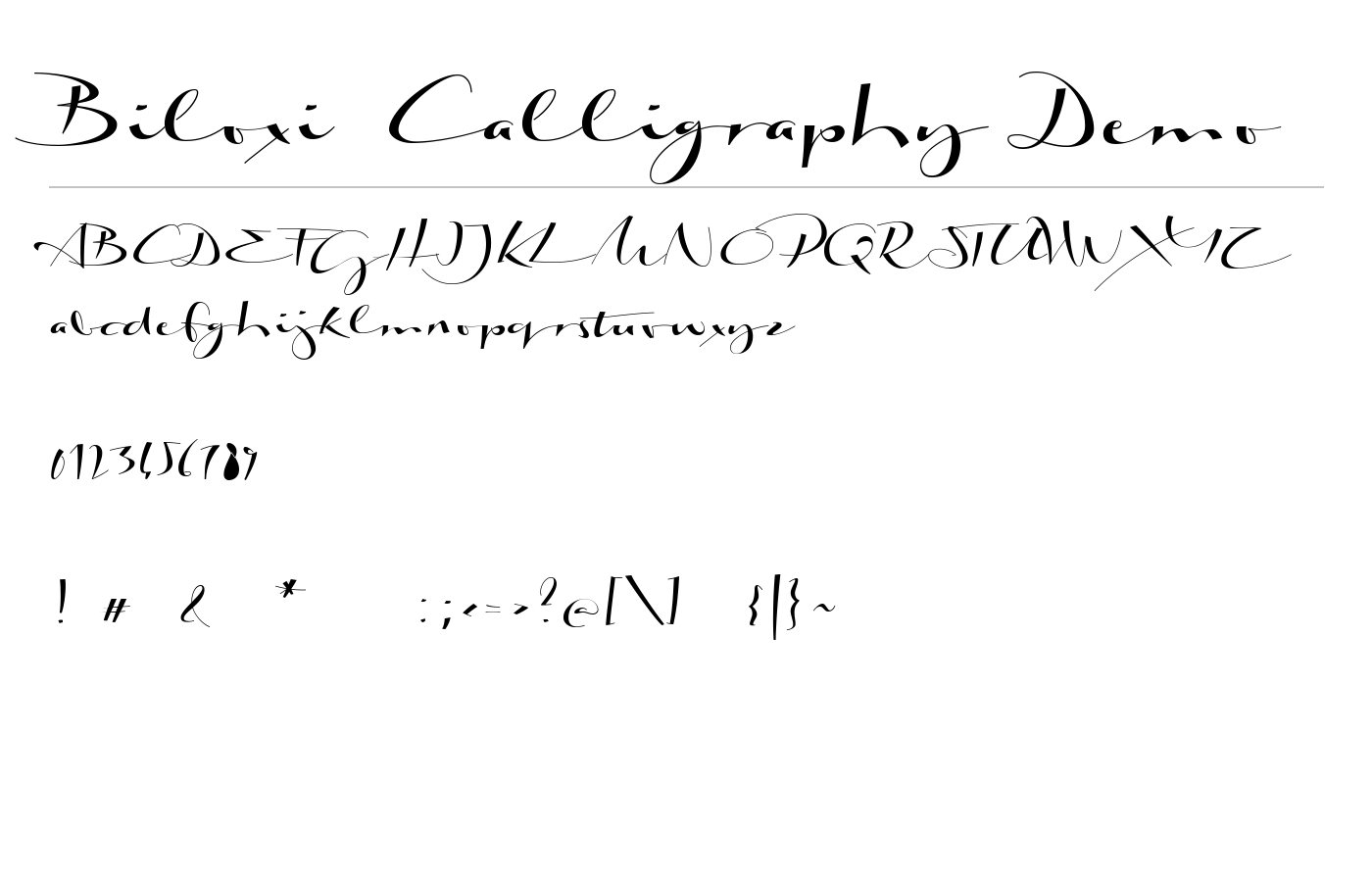
Biloxi Calligraphy Demo is a delicate and elegant script font with a flowing, handwritten style that captures the essence of traditional calligraphy. Its fine, varied strokes and sweeping curves give it a graceful and artistic feel, making it ideal for invitations, branding, and decorative designs seeking a sophisticated and personal touch. This font works best in contexts where elegance and uniqueness are key, such as wedding materials, luxury packaging, and stylish headlines.
Biloxi Calligraphy Demo Font
About Biloxi Calligraphy Demo Font
| Designer | Roland Huse |